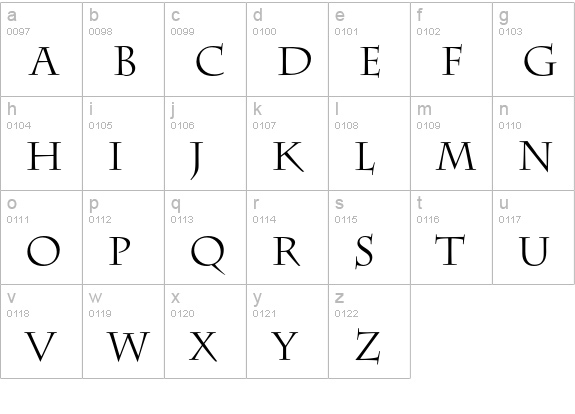
Charlemagne Regular Font Details
Charlemagne Regular is the standard, neutral variant in the Charlemagne typeface family \xE2\x80\x94 well suited to general body text, paragraphs, and standard typographic work.
Charlemagne Regular font is a classic and elegant typeface that exudes a sense of sophistication and timelessness. Its graceful curves and sturdy serifs make it ideal for a wide range of design projects, from invitations to branding materials. The versatility of Charlemagne Regular font allows it to be used in both headlines and body text, ensuring a cohesive and polished look for any project. What sets Charlemagne Regular font apart is not only its aesthetic appeal but also the fact that it is freely available to download at FontsMarket.com. This means that you can easily access this high-quality font without any cost, making it a valuable addition to your font library. Whether you're a graphic designer, a student, or a business owner looking to elevate your branding, Charlemagne Regular font is a fantastic choice that combines style and accessibility in one package.